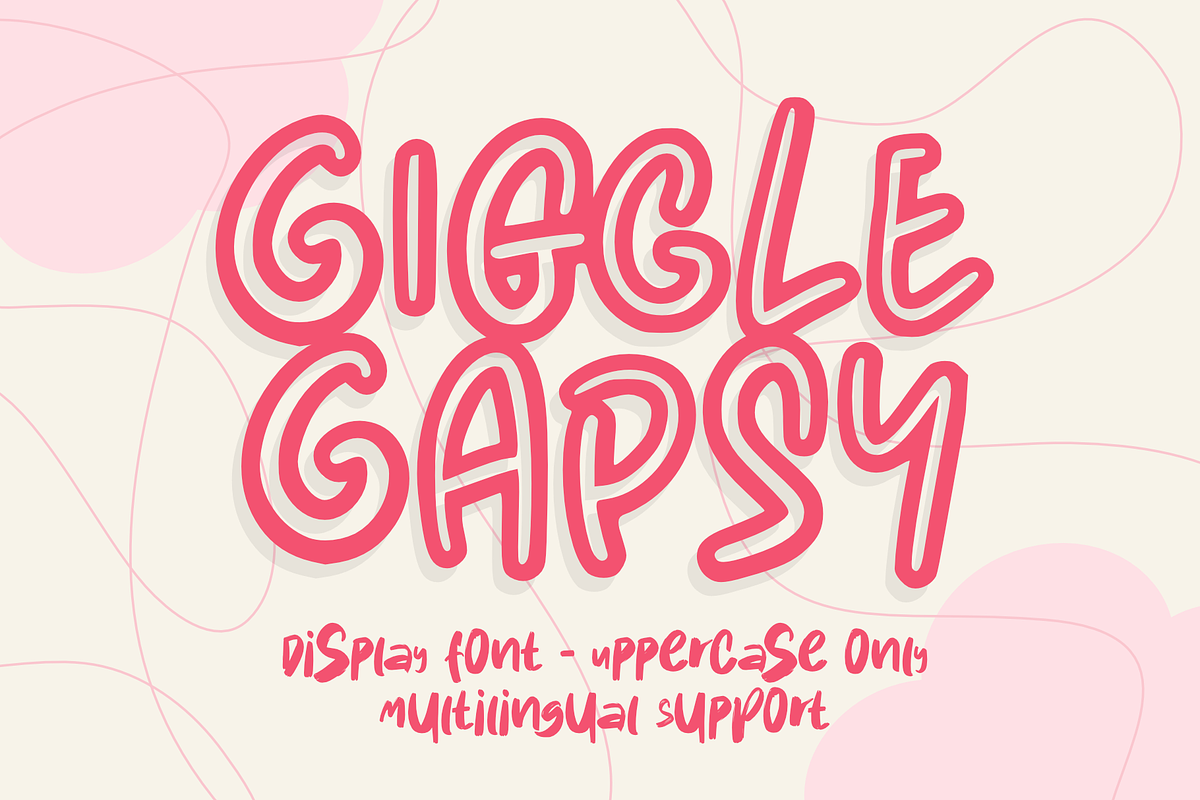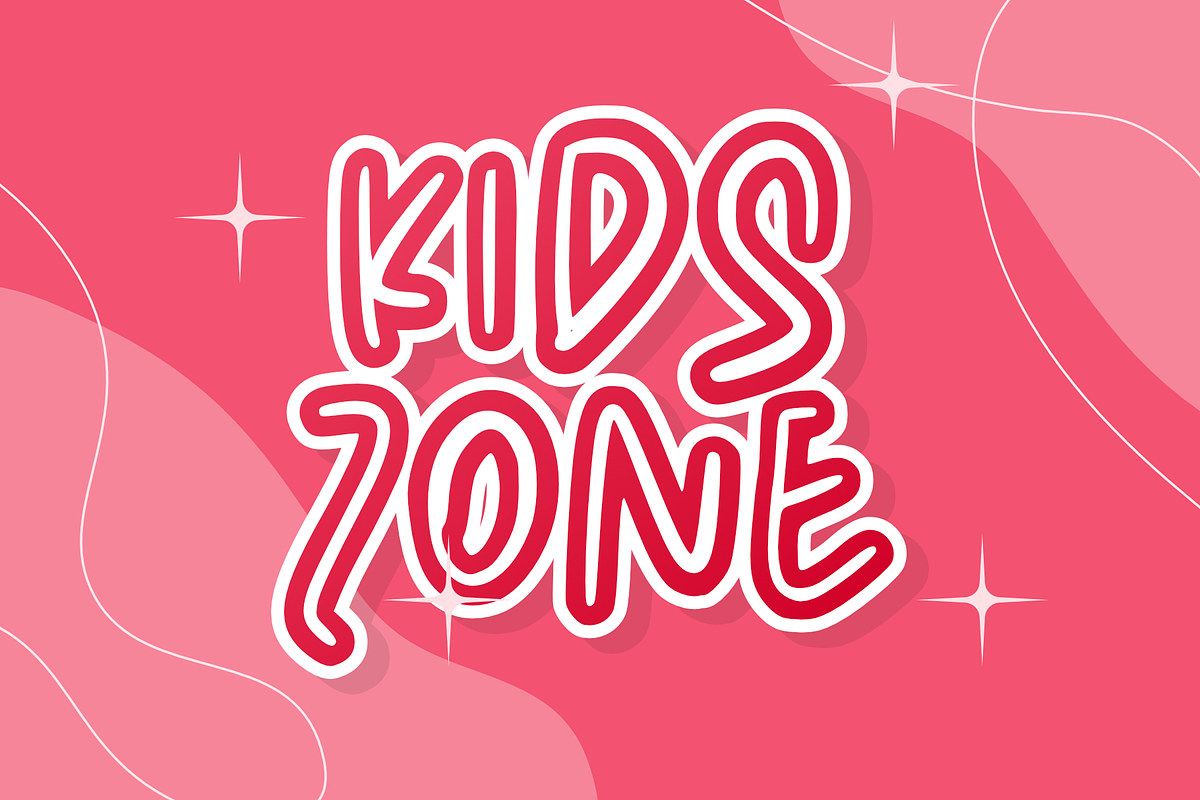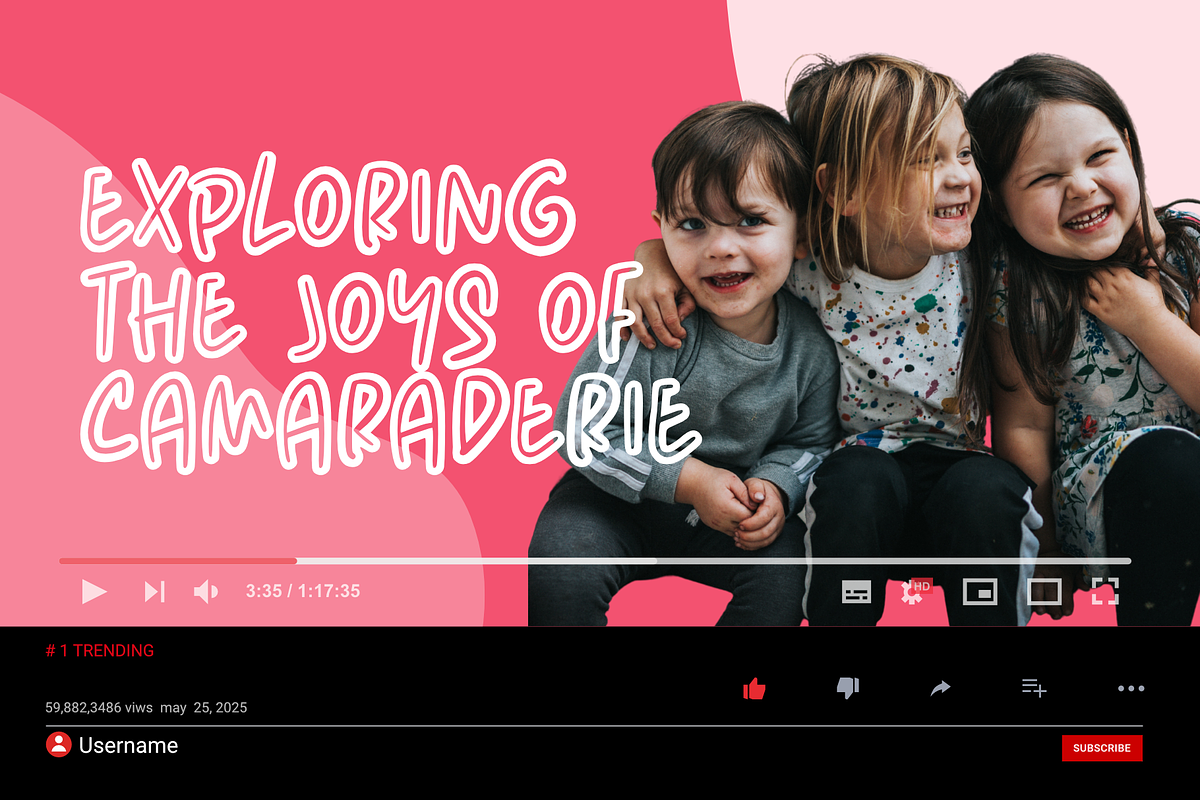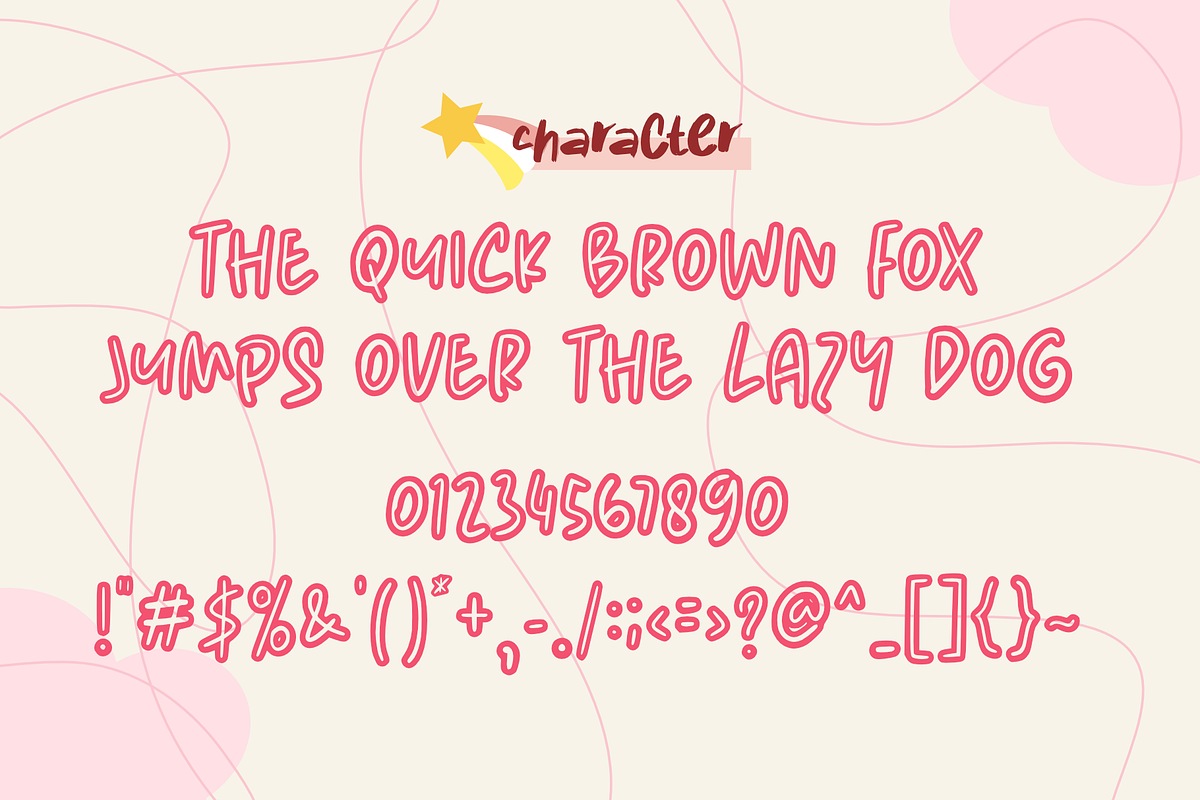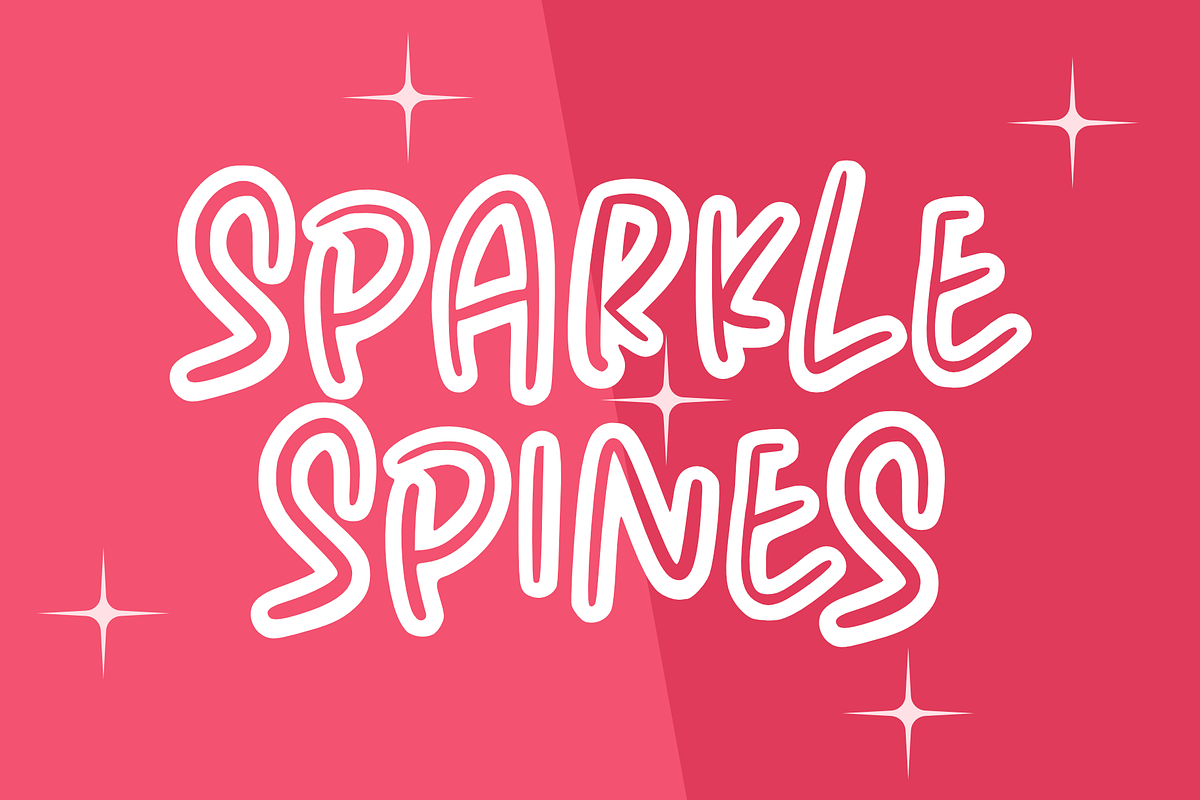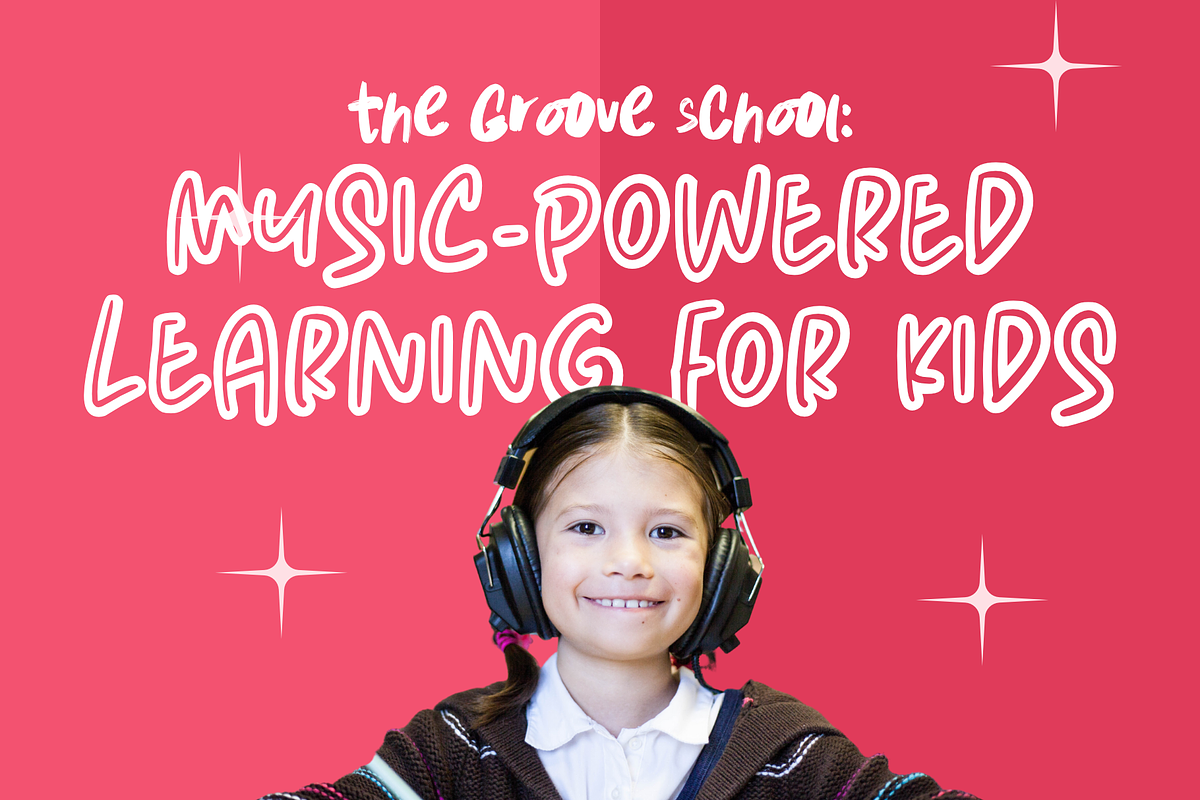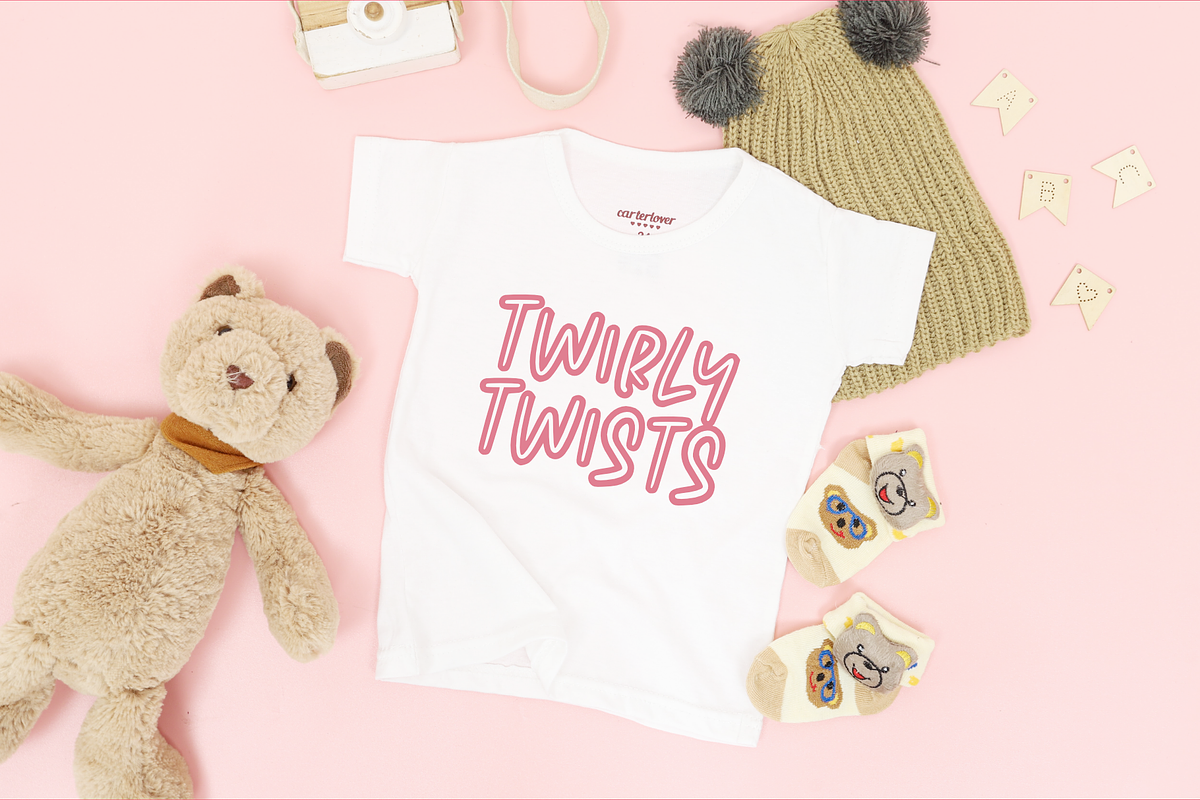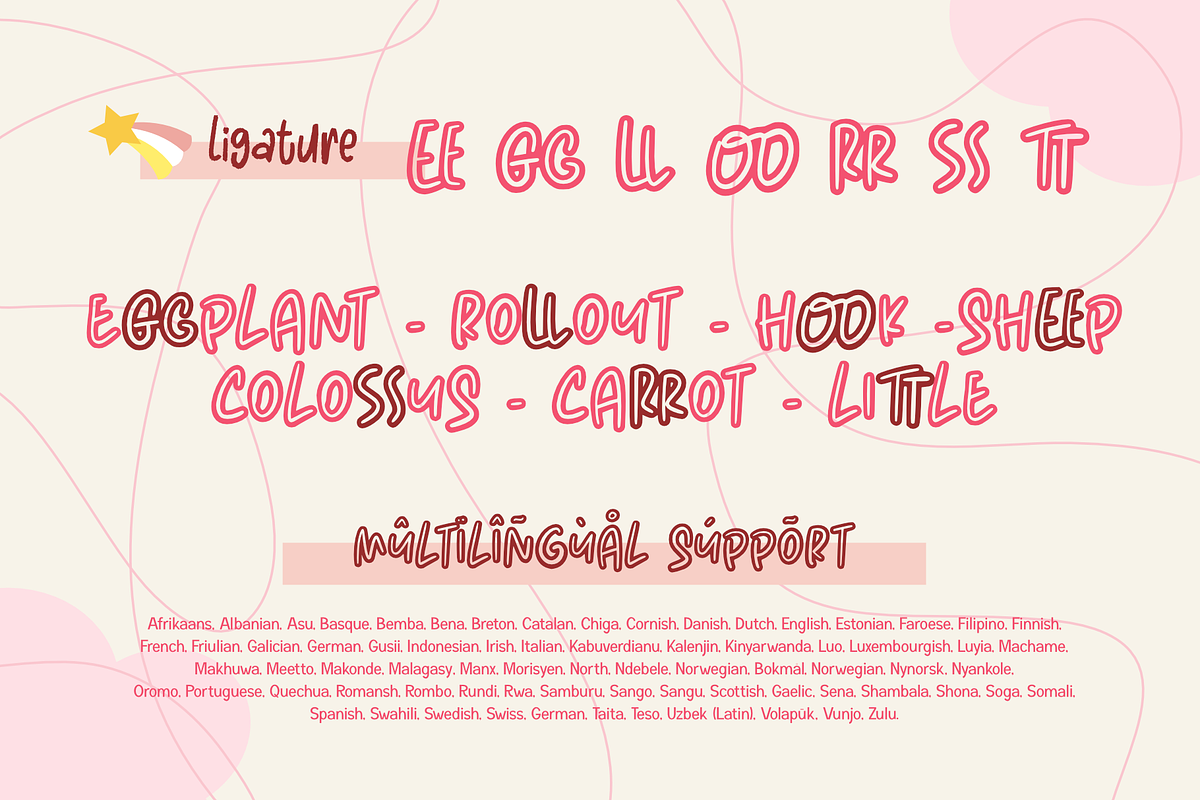
Giggle Gapsy
c With a casual, outline style and a friendly approach, this font is perfect for adding a touch of fun to any project aimed at kids. The letters are designed with playful curves, giving the font a unique and cheerful look. Whether you're creating a poster for a children's birthday party, a logo for a toy brand, or anything in between, "Giggle Gapsy" is sure to bring a smile to your audience's faces. So why wait? Start using this exciting new font today and see the difference it can make!
- Uppercase Only
- Multilingual Accent
This Font Support Languages : Afrikaans, Albanian, Asu, Basque, Bemba, Bena, Breton, Catalan, Chiga, Cornish, Danish, Dutch, English, Estonian, Faroese, Filipino, Finnish, French, Friulian, Galician, German, Gusii, Indonesian, Irish, Italian, Kabuverdianu, Kalenjin, Kinyarwanda, Luo, Luxembourgish, Luyia, Machame, Makhuwa, Meetto, Makonde, Malagasy, Manx, Morisyen, North, Ndebele, Norwegian, Bokmål, Norwegian, Nynorsk, Nyankole, Oromo, Portuguese, Quechua, Romansh, Rombo, Rundi, Rwa, Samburu, Sango, Sangu, Scottish, Gaelic, Sena, Shambala, Shona, Soga, Somali, Spanish, Swahili, Swedish, Swiss, German, Taita, Teso, Uzbek (Latin), Volapük, Vunjo, Zulu.